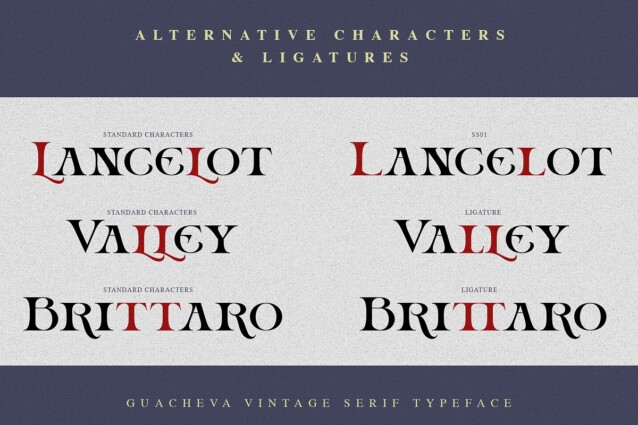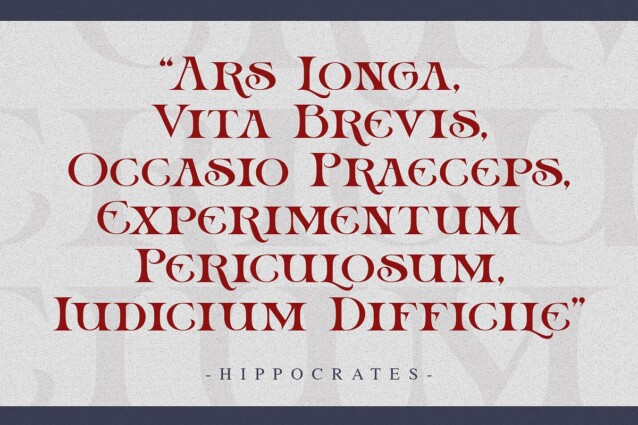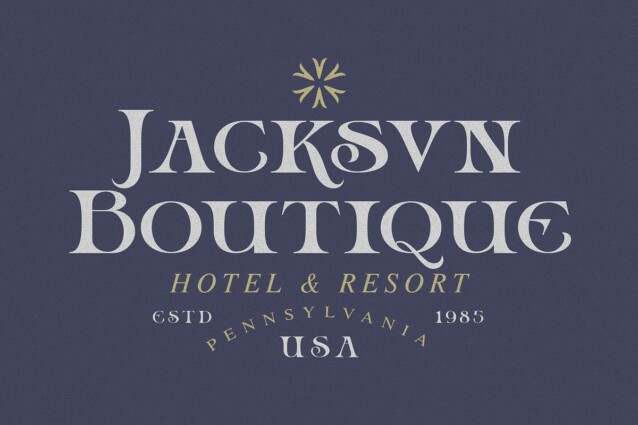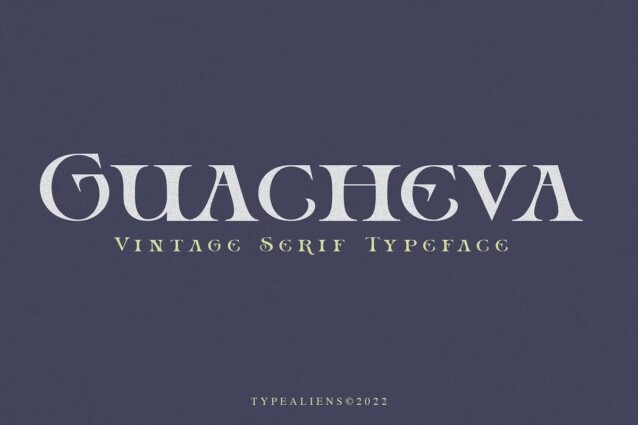
Guacheva Font
Guacheva Font is a vintage display typeface combined with rounded proportions lettersforms. It will be very suitable for art and elegant themed designs. This font is an all caps font with a height difference between its Uppercase and Lowercase. So even though it’s a little feminine, it still looks sturdy and thick, because this font has bold characteristics too.